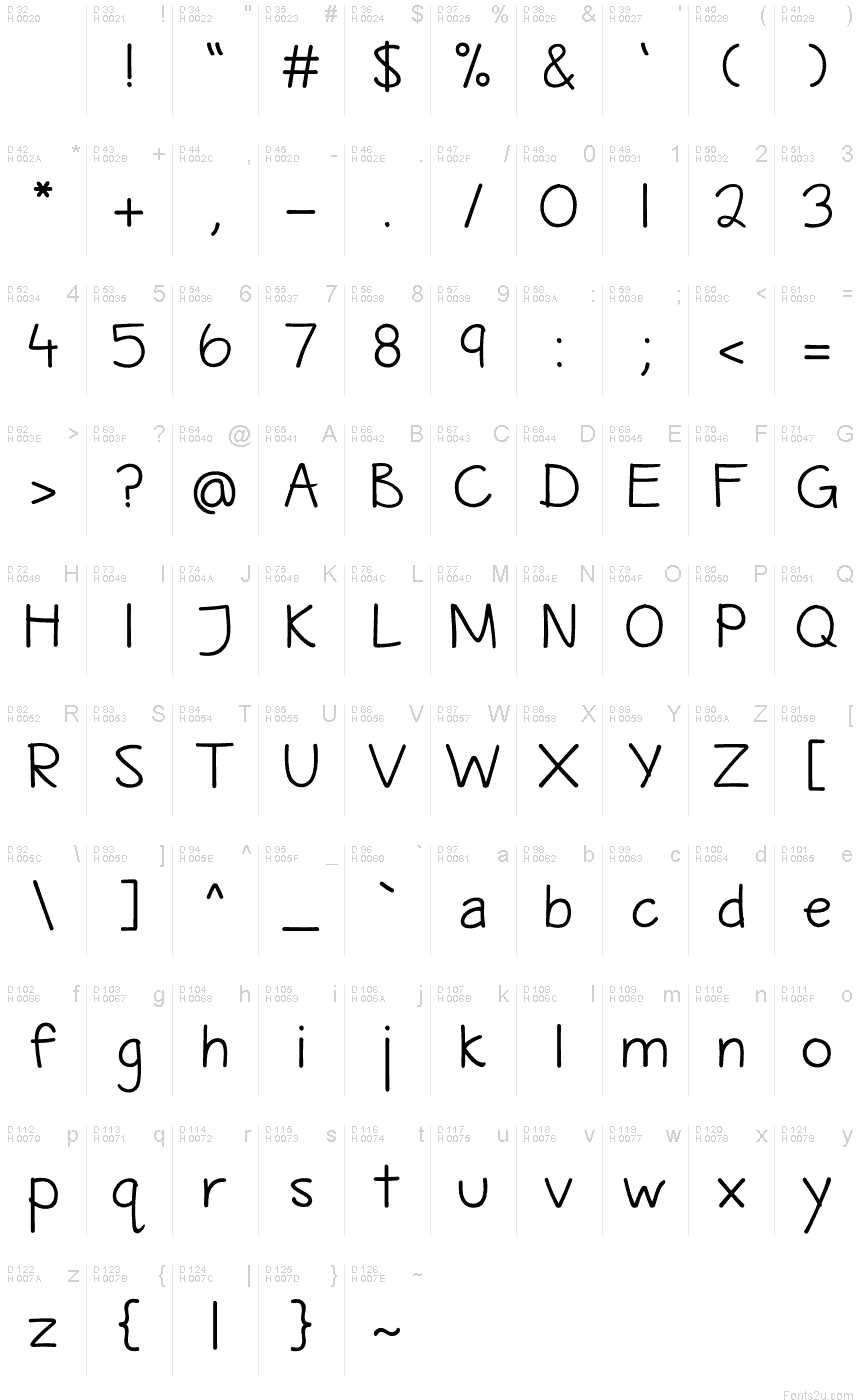
Maritime Tropical Double
Maritime Tropical Double is a free handwritten font with tall, loose letters and an easy marker-drawn manner. Its uneven widths and rounded turns make the writing look personal rather than carefully typeset.
Independent cafes and beachside shops could use it for menus, packaging, and casual signage. The open, slightly wobbly forms suit brands built around travel, handmade goods, or relaxed hospitality. It is especially convincing for tropical event graphics and friendly food branding.
Update 2 included further spacing improvements.
Update 1 fixed spacing issues affecting letters such as “I” and “j.”